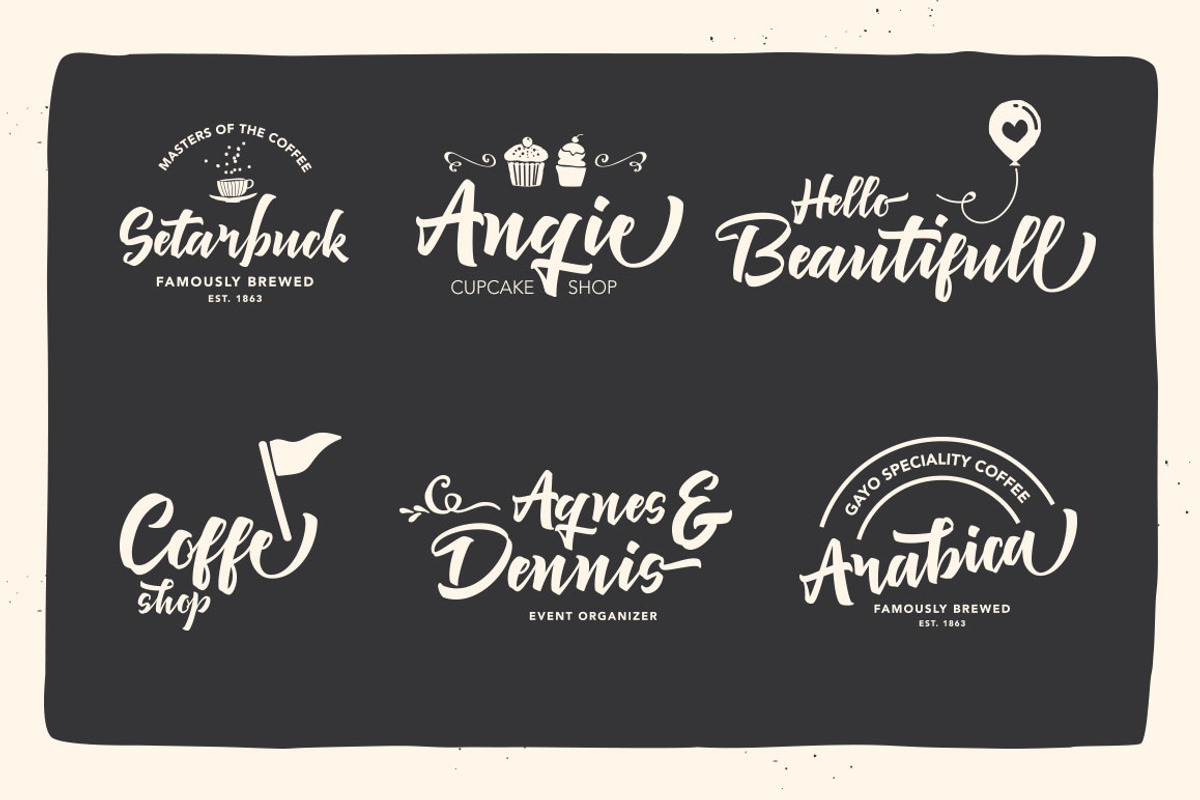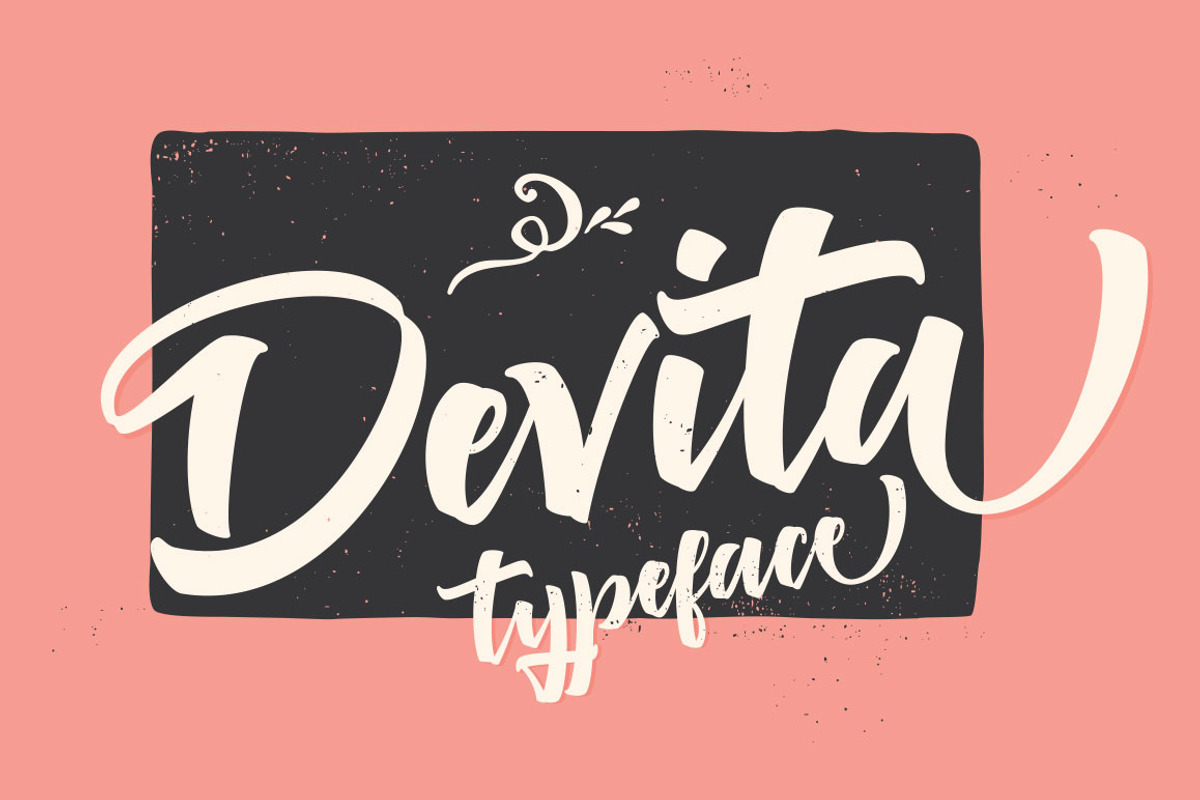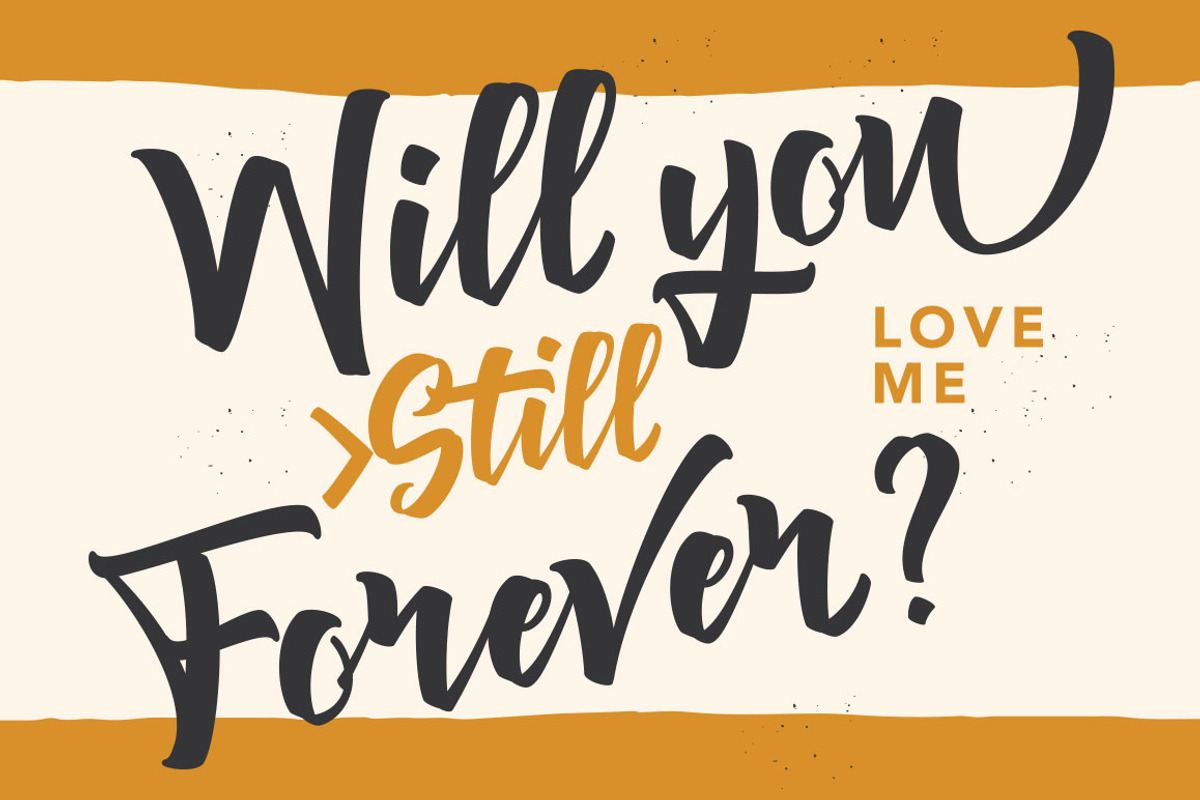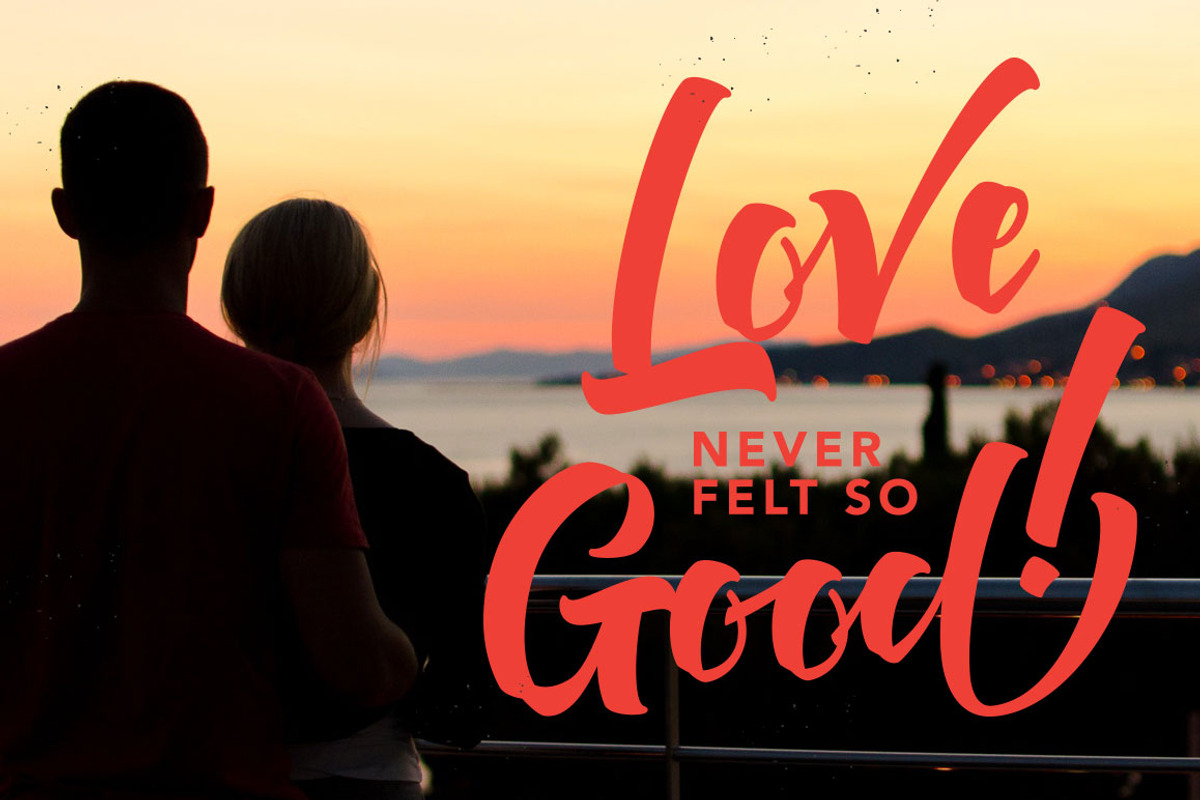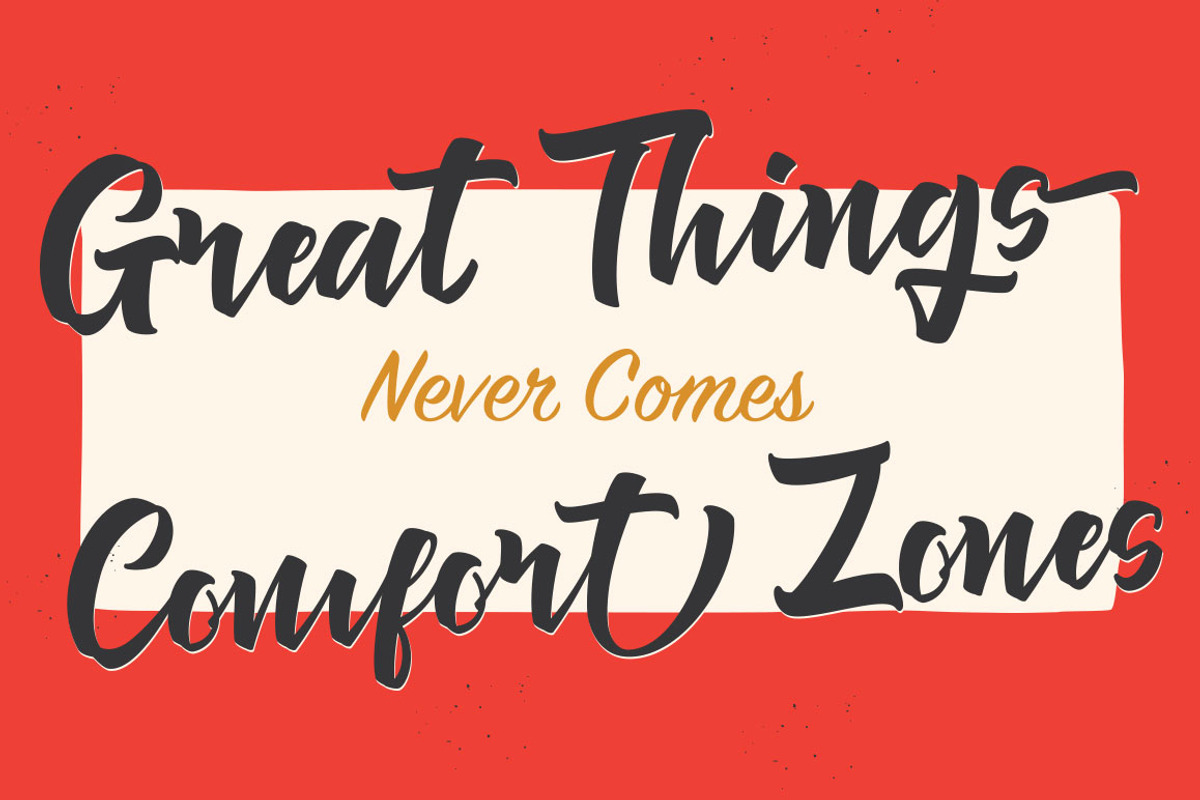
Devita is handmade font. Including a tons of glyphs, initial and terminal letters, alternates, ligatures and multiple language support.
Can be used for various purposes; headings, signature, logos, wedding invitation, t-shirt, signage, lable, posters, badges etc. To enable the OpenType Stylistic alternates, you need a program that supports OpenType features such as Adobe Illustrator CS, Adobe Indesign.